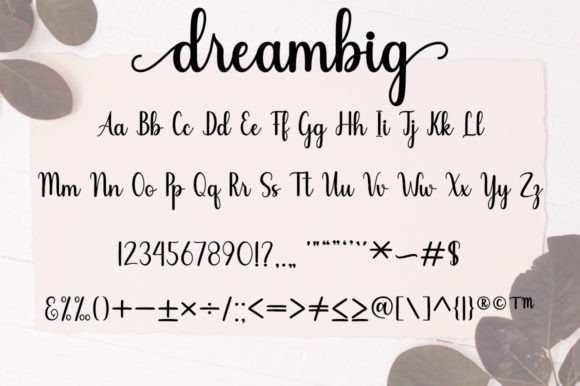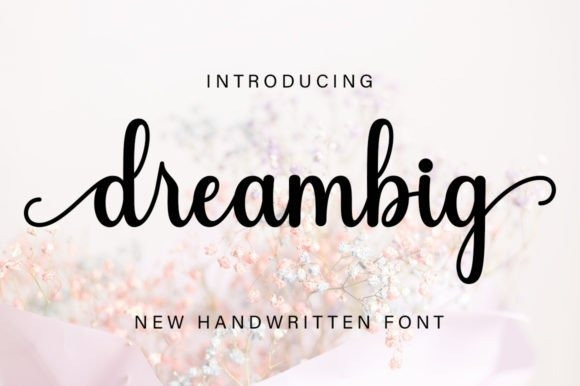
Dreambig Font
Dreambig Script Font latest style letters are perfect for wall displays, wedding invitations, social media post logos, advertisements, product packaging, product designs, labels, photography, watermarks, invitations, stationery, and any project that requires handwritten taste.